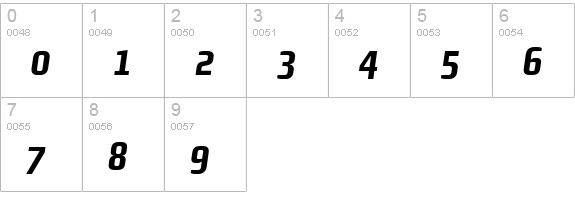
MorganSansCond Bold ItalicOffice is a strong, high-contrast variant in the MorganSansCond typeface family \xE2\x80\x94 well suited to headlines, attention-grabbing titles, and strong calls-to-action.
Introducing MorganSansCond Bold ItalicOffice font - a striking and versatile typeface perfect for adding a touch of modern sophistication to your designs. This bold and italic variant of the MorganSansCond typeface exudes elegance and professionalism, making it ideal for a wide range of projects. With its clean lines, distinct letterforms, and bold presence, MorganSansCond Bold ItalicOffice font commands attention and creates a strong visual impact. Whether you're designing a sleek corporate presentation, a stylish branding project, or a contemporary website, this font is sure to elevate your creations to the next level. The best part? MorganSansCond Bold ItalicOffice font is available for free download at FontsMarket.com. Now you can access this premium typeface without any cost, allowing you to enhance your designs with a high-quality font without breaking the bank. Don't miss out on this opportunity to elevate your projects with the elegant and impactful MorganSansCond Bold ItalicOffice font - download it for free today!